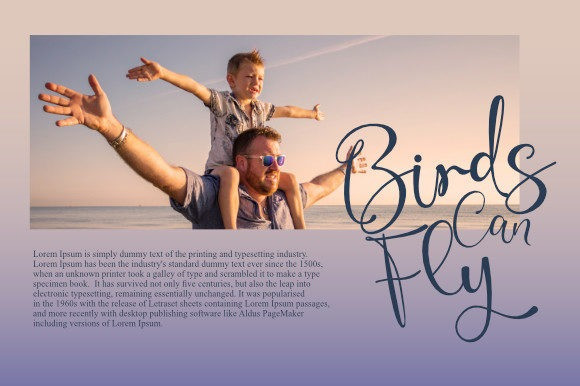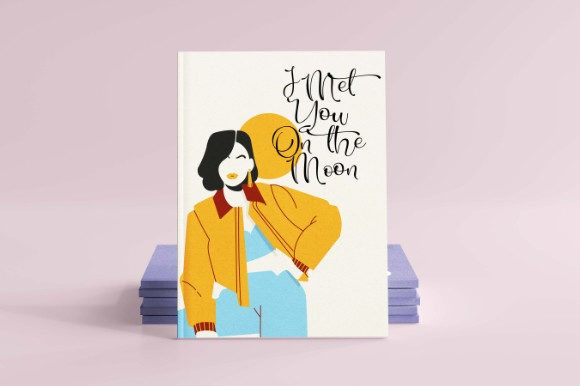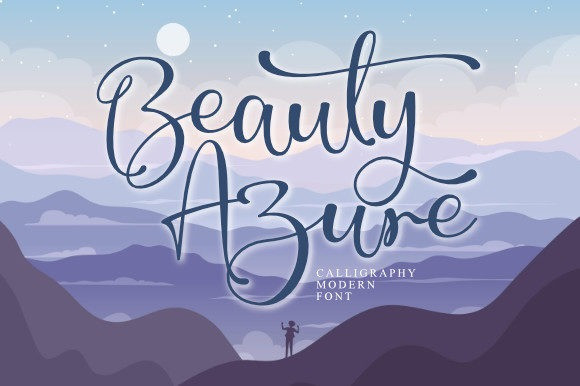
Beauty Azure Font
Beauty Azure Font is a round lettered and sweet handwritten font. Whether you’re using it for crafting, digital designing, presentations or greeting cards making, it’s perfect!